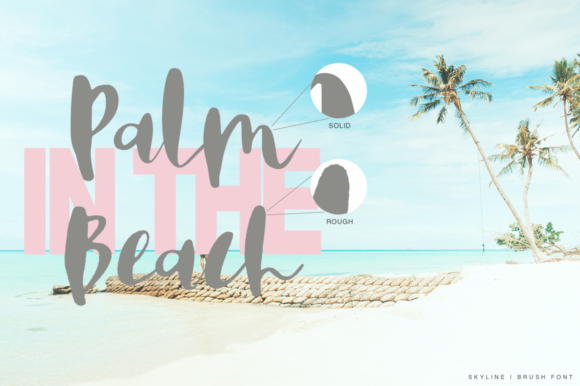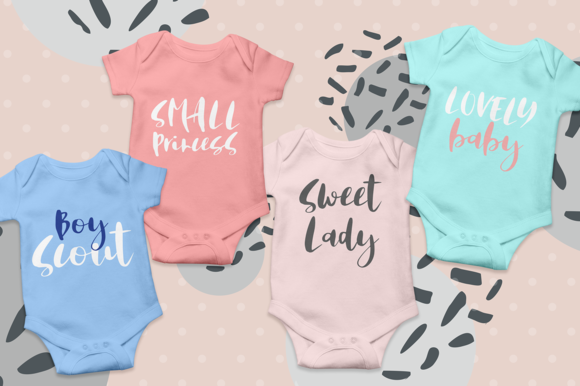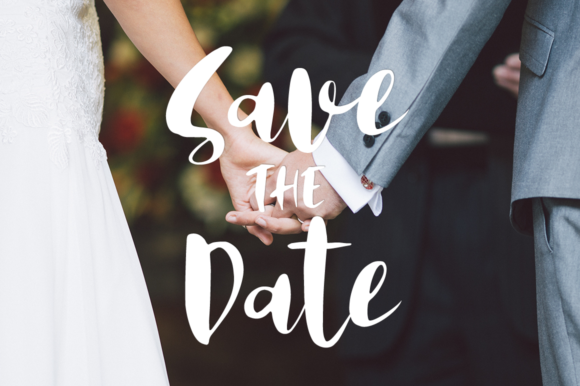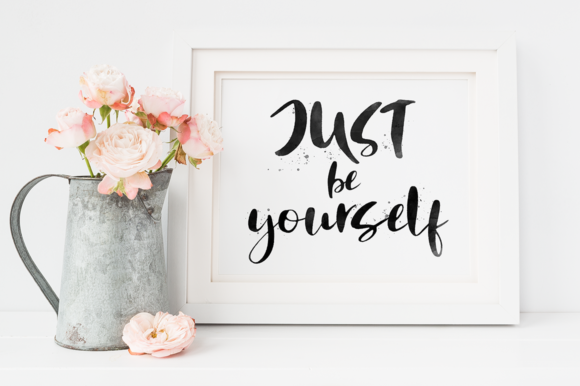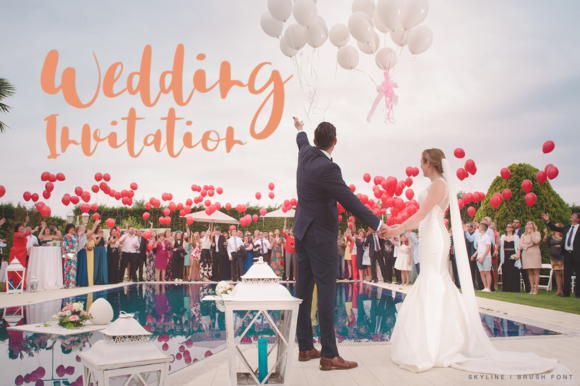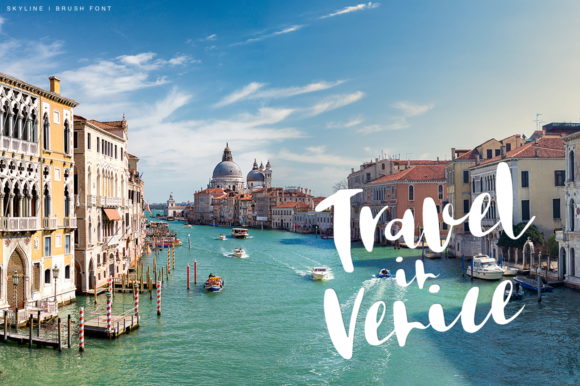
Skyline Font
About Skyline Font
Skyline is a beautiful, fresh looking calligraphy font that will add tons of charm to all your Summer projects! It looks friendly, and works well in a wide range of print and digital works.